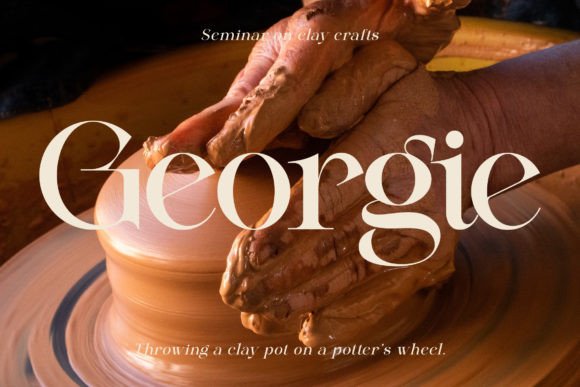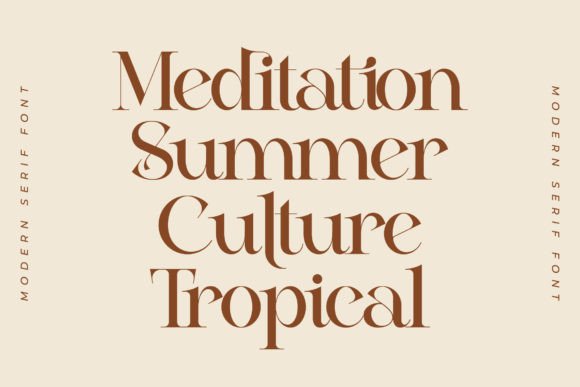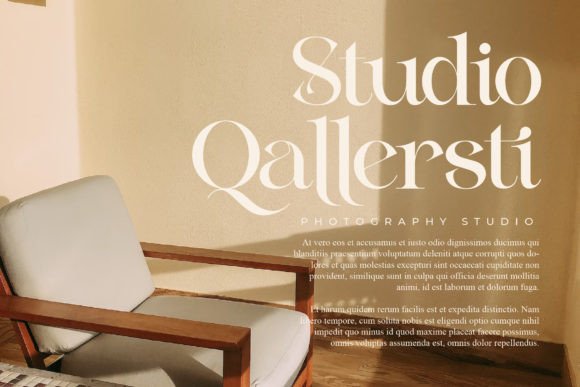
Introduction to Satista Font
Have you ever been working on a creative project, and the perfect font just evades you? The one that would elevate your design from good to great? I’ve been there too. That’s why I’m excited to share with you a game-changing design resource that will take your work to the next level: the Satista Font.
| 📌 Product Name | Satista Font |
| 👤 Author | Storytype Studio |
As a designer, you know how crucial it is to have a high-quality font that complements your creative vision. Satista Font is a modern and stylish serif font that’s sure to impress. Its well-balanced letters and transparent background make it a versatile choice for any design project. With Satista Font, you can create stunning designs that showcase your talent and creativity.
Key Features of Satista Font
- High-quality design resource ideal for creative projects requiring a unique touch.
- Transparent background, making it easy to use in various design applications and ensuring a clean, minimalist look.
- Designed with precision, the Satista Font boasts high resolution, making it perfect for print and digital applications.
- Unique characteristics include elegant lines, subtle flair, and a sophisticated aesthetic, setting it apart from other fonts.
- Perfect for designers seeking a free, high-quality design resource that elevates their creative project.
Honest Review: Satista Font
I recently stumbled upon the Satista Font, and I must say, it’s been a game-changer for my creative projects. As a designer, I’m always on the lookout for high-quality fonts that can elevate my work. Satista Font has exceeded my expectations in this regard.
Here are some things that work well:
- ✨ The Satista Font offers a wide range of styles and weights, making it perfect for various design projects.
- ✨ The font is highly customizable, allowing me to tailor it to my specific design needs.
- ✨ The font’s transparent background feature has been a huge help in creating visually appealing designs.
- ⚠️ The font’s compatibility with certain software can be a bit finicky at times.
- ⚠️ Some users may find the font’s aesthetic to be a bit too modern or trendy.
Overall, I’m thoroughly impressed with the Satista Font. Its high quality and versatility make it a valuable addition to any designer’s toolkit. If you’re looking for a reliable design resource, I highly recommend giving Satista Font a try – it’s a game-changer for any creative project!
Tips for Getting the Most Out of Satista Font
1. Use the Satista Font on a transparent background to create a modern and sleek design.
2. Experiment with different font sizes and colors to add visual interest to your design.
3. Combine the Satista Font with other design elements, such as images and shapes, to create a unique and creative design.
Common Use Cases for Satista Font
The Satista Font is ideal for a variety of creative projects, including:
1. Social media graphics and ads
2. Business cards and marketing materials
3. Infographics and presentations
4. Blog